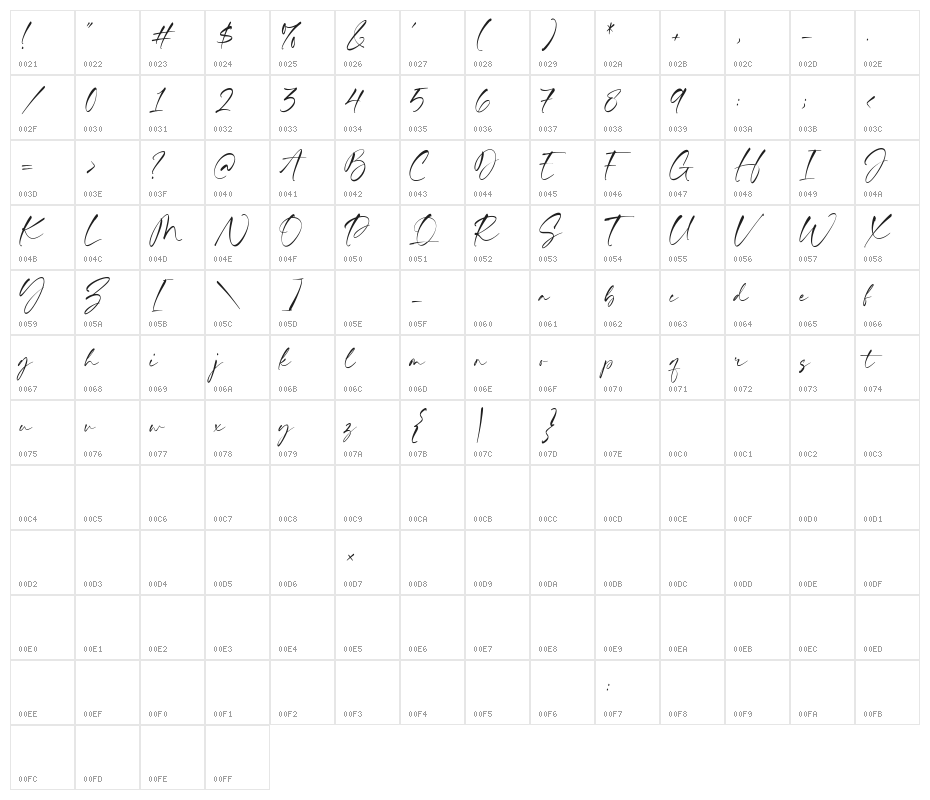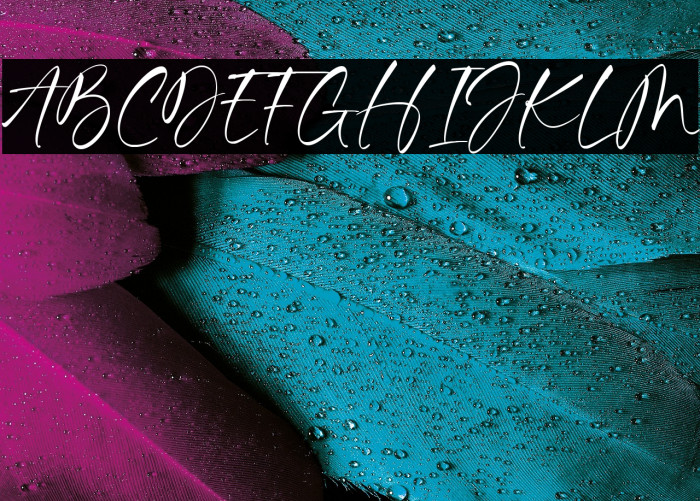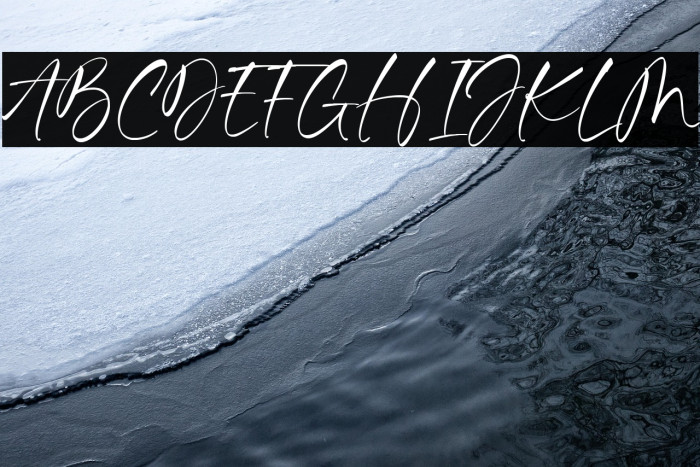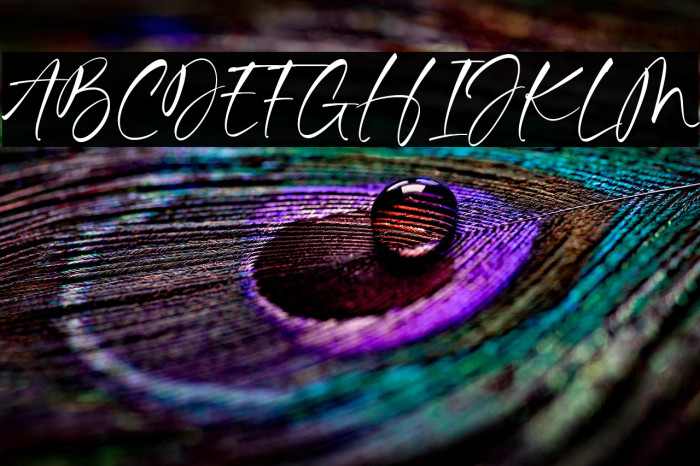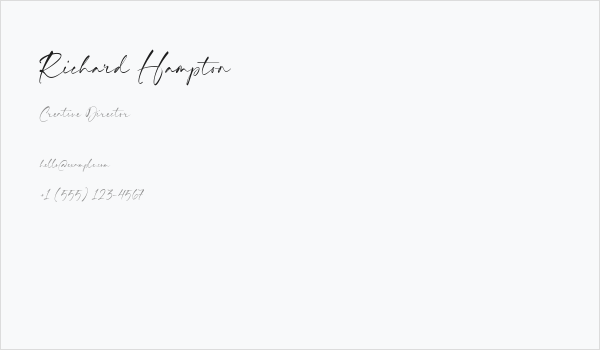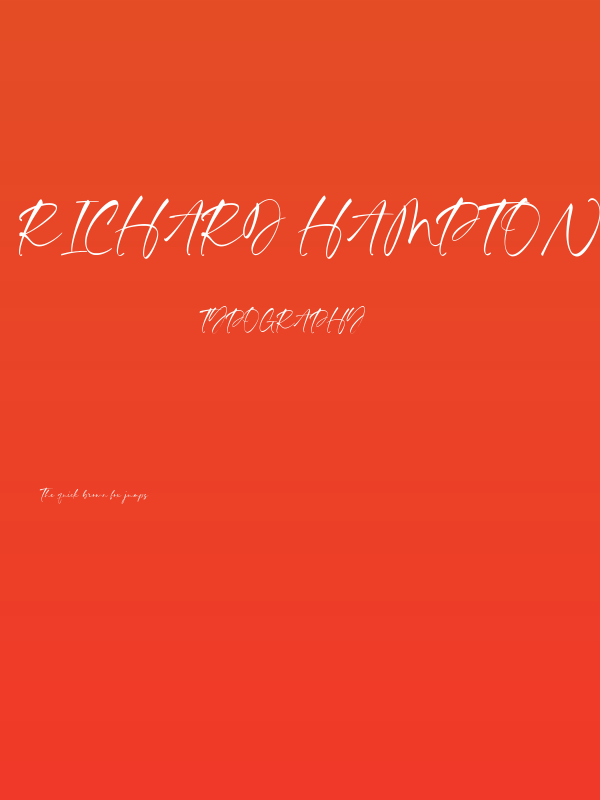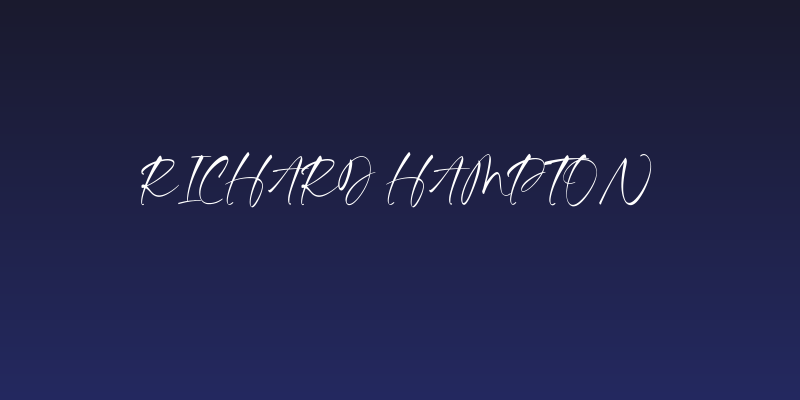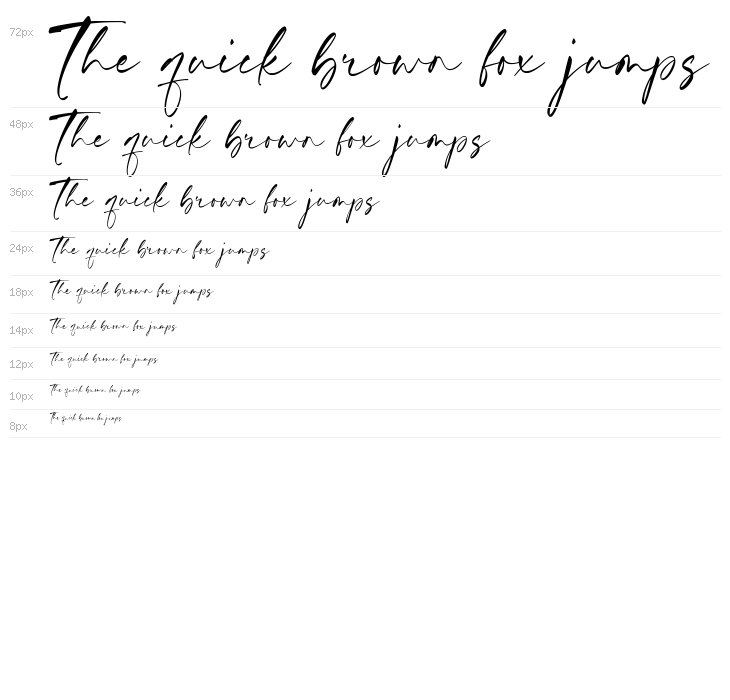
Richard Hampton Font
Richard Hampton Description
This font exhibits a flowing, elegant script style with a handwritten appearance. The characters are connected in a fluid manner, giving it a natural and personal touch. The uppercase letters are tall and graceful, while the lowercase letters maintain a consistent flow with subtle variations in stroke thickness. The numerals are distinct yet harmonize well with the overall script style. Special characters are crafted with the same attention to detail, enhancing the font's versatility. This font is ideal for projects that require a personal, elegant touch, such as invitations, greeting cards, or branding materials.
| Overall Style | Elegant, Handwritten |
| Proposed Projects | Ideal for wedding invitations, greeting cards, personal branding, and elegant packaging designs. |